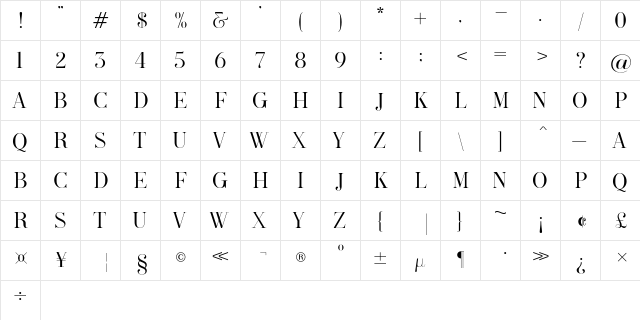
Melanic Black Serif Demo Regular
Design Context for Melanic Black Serif Demo Typeface
Melanic Black Serif Demo carries the refined structure of traditional serif typography, with bracketed terminals and considered proportions that communicate credibility and craft.
Pro Tip: Use Melanic Black Serif Demo for editorial body copy and considered headline work. Pair with a neutral sans for UI elements or captions to create a classic hierarchy.